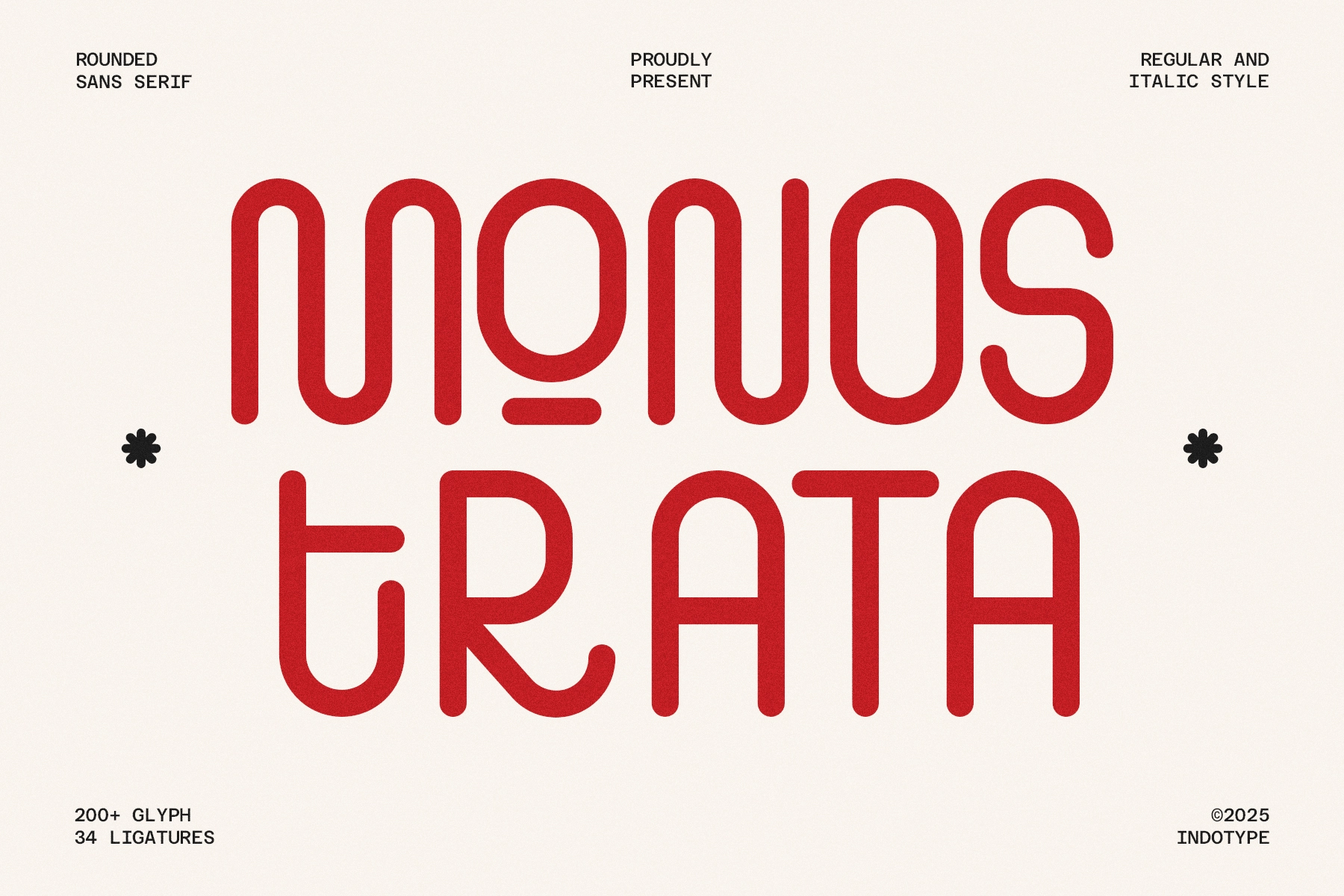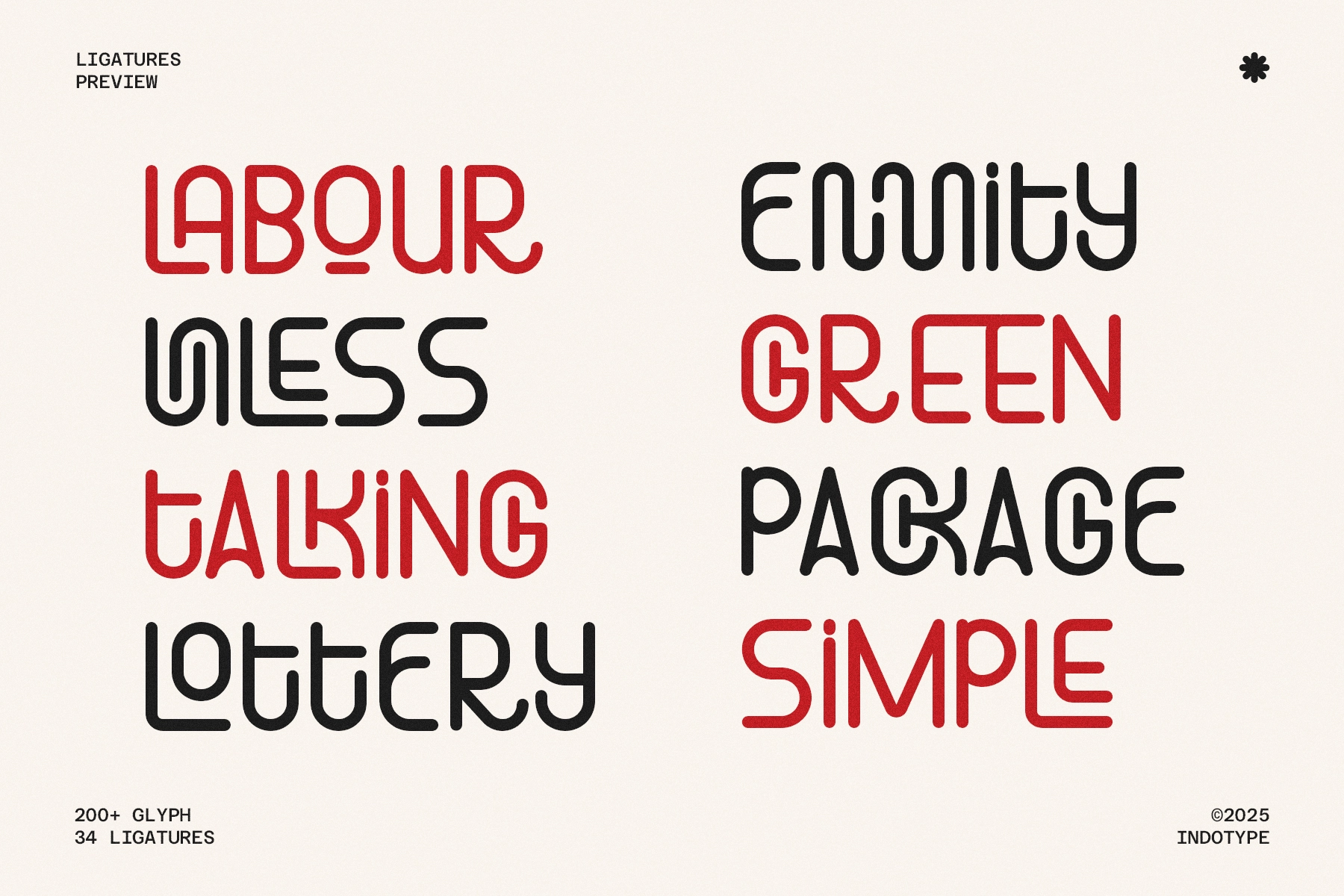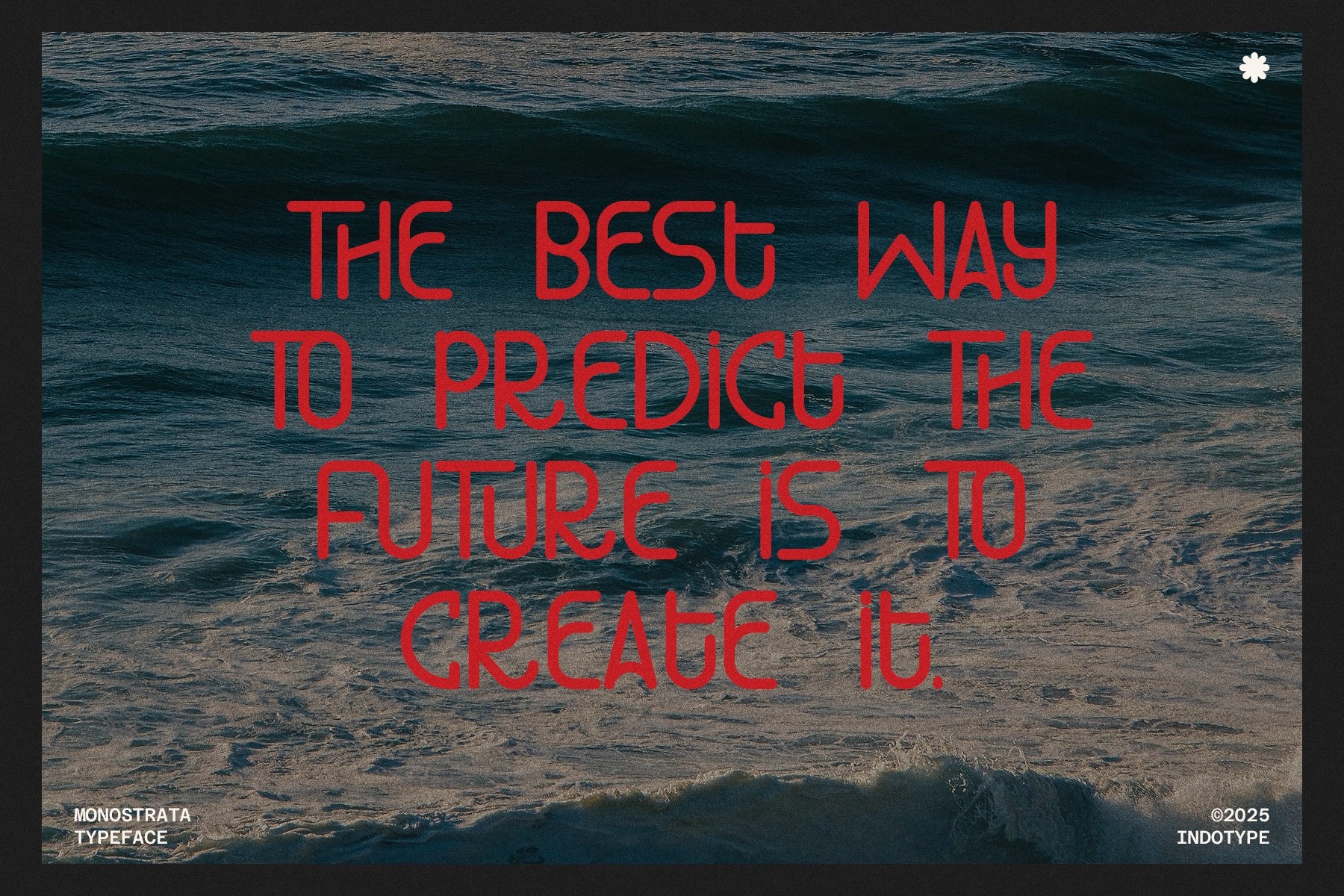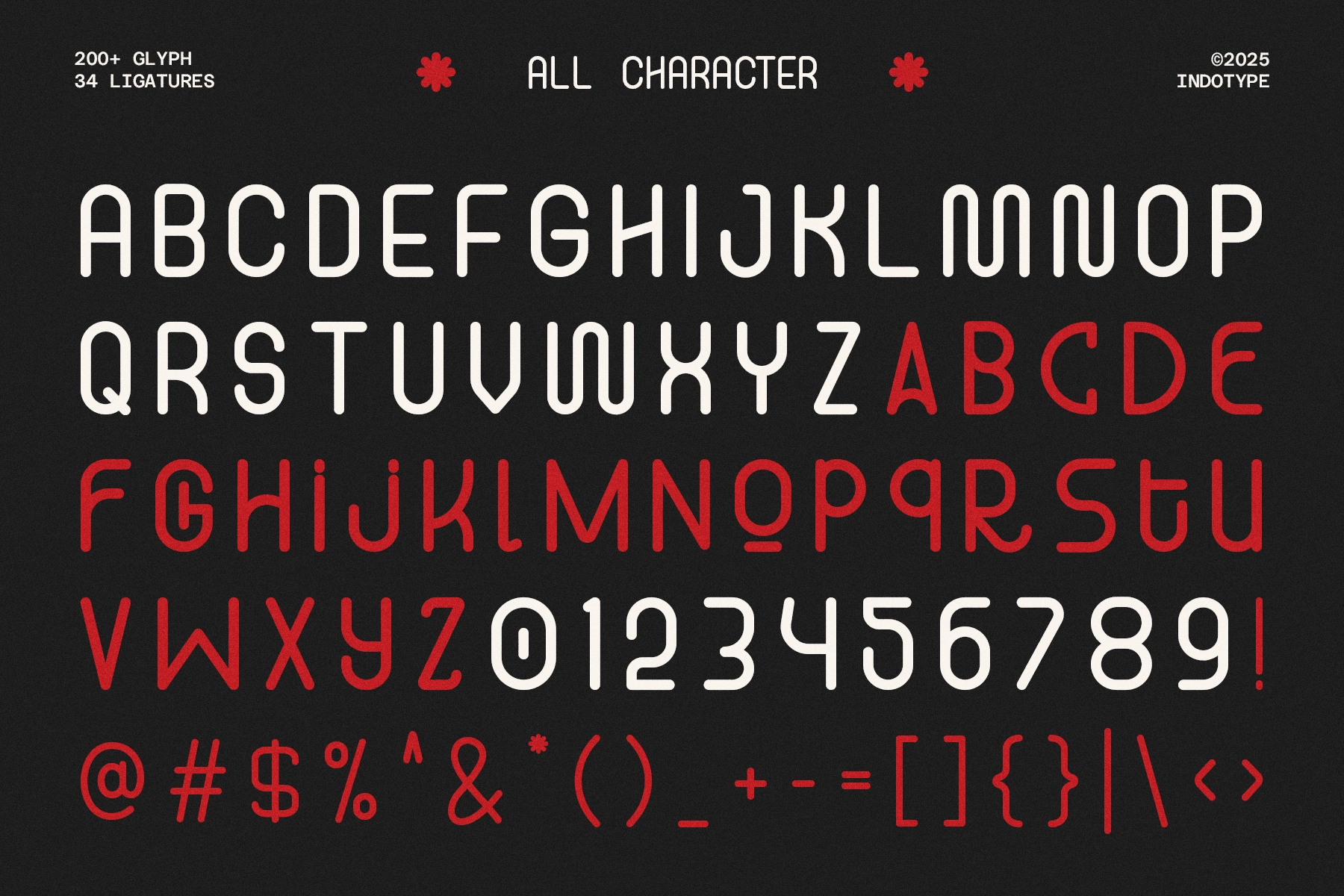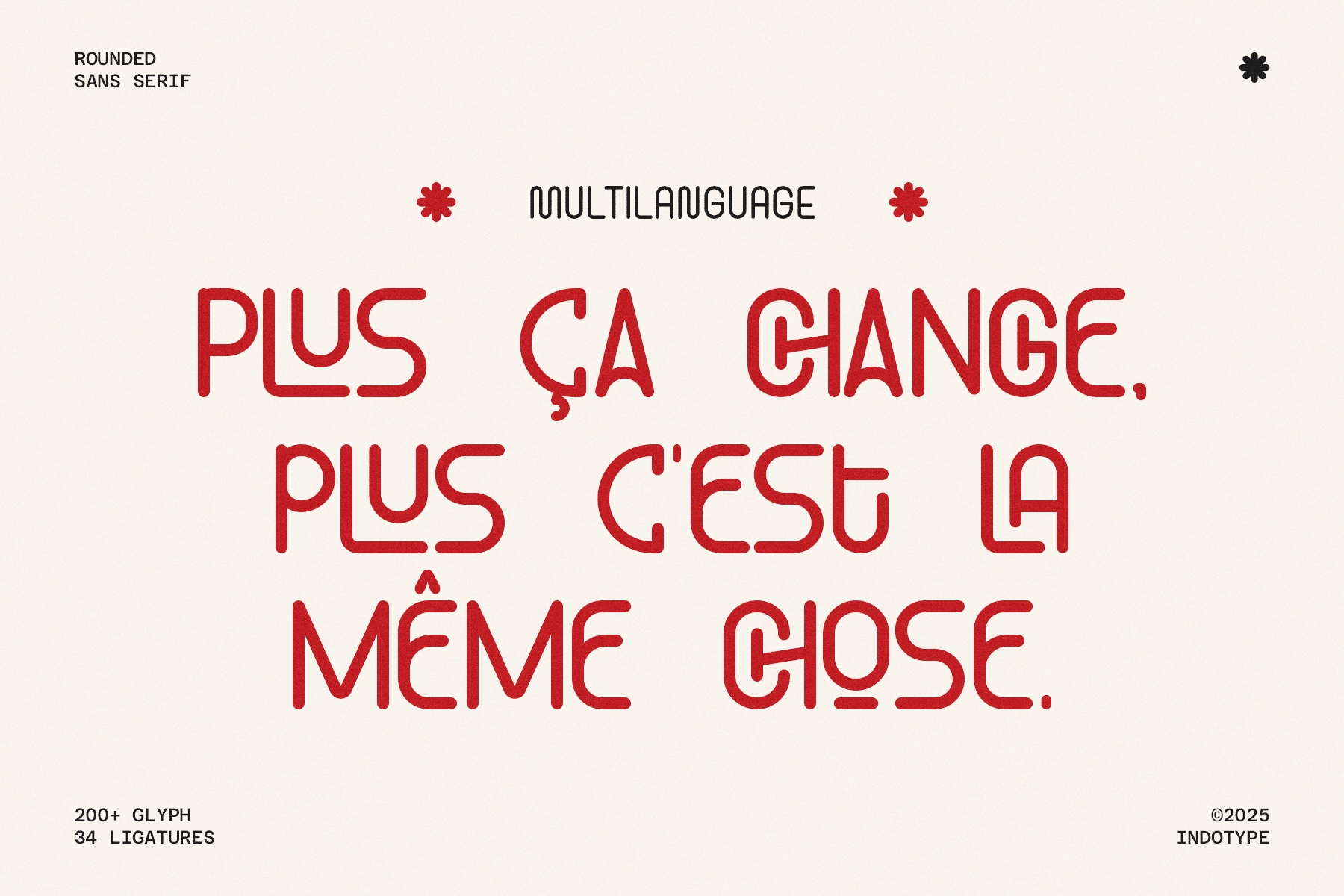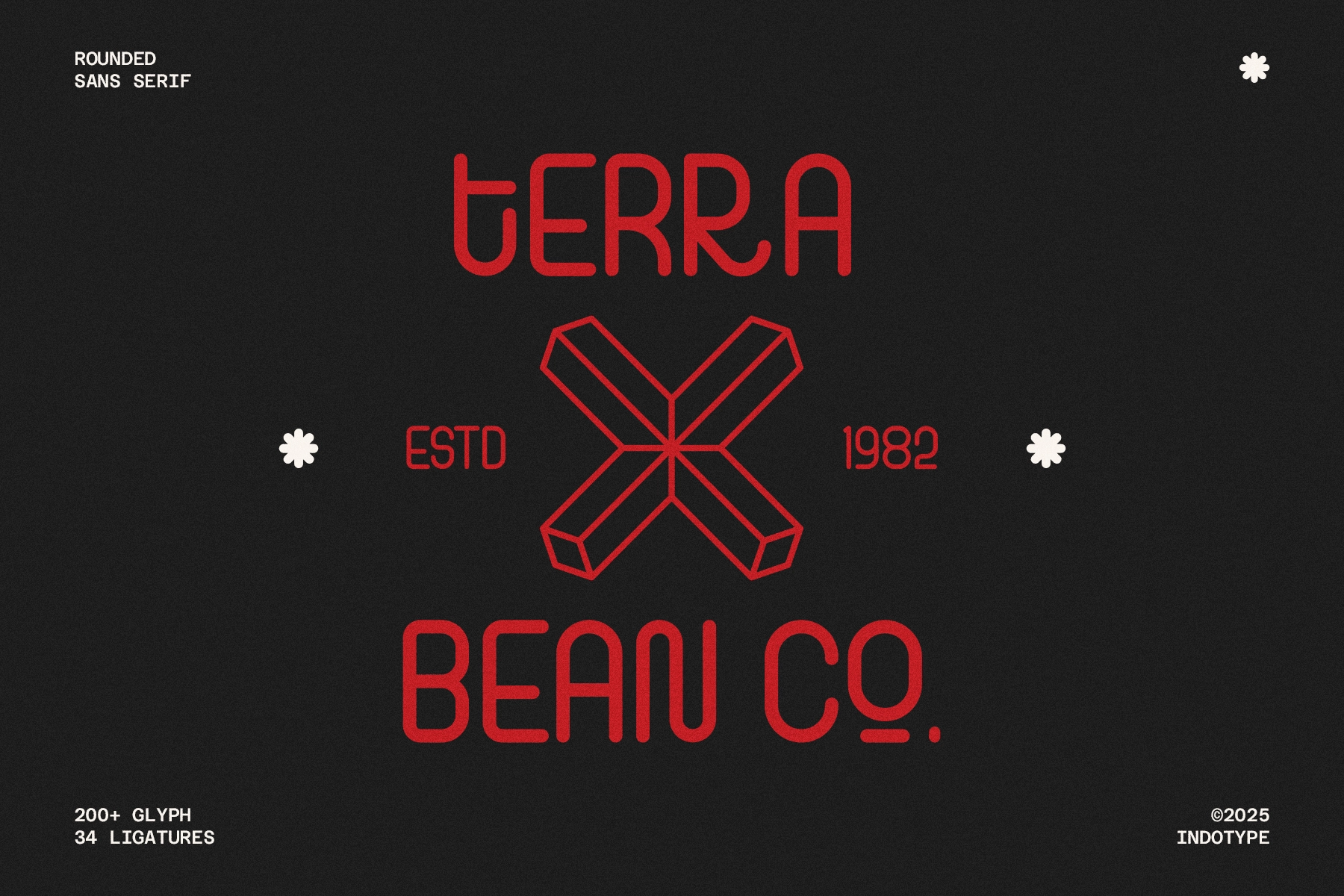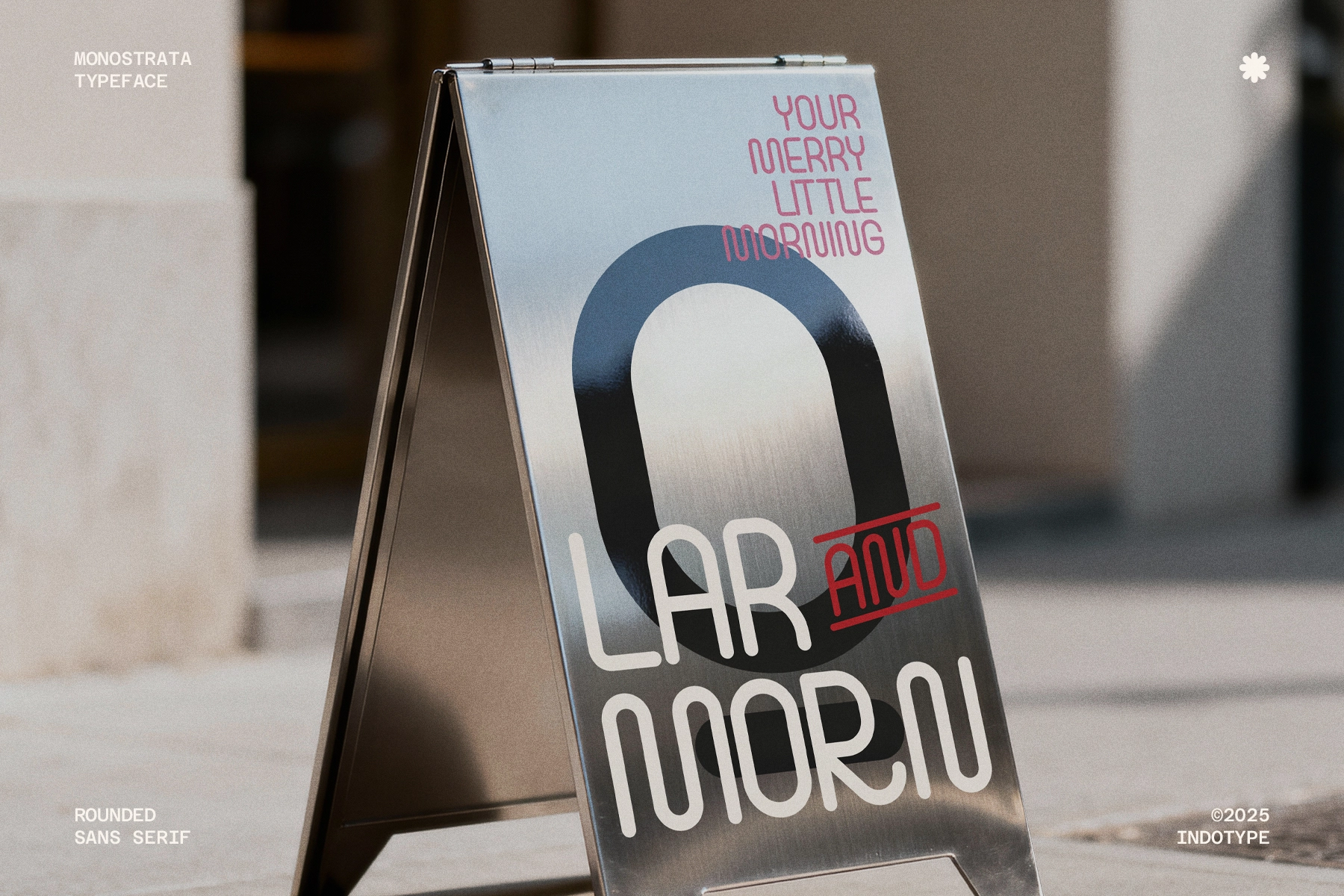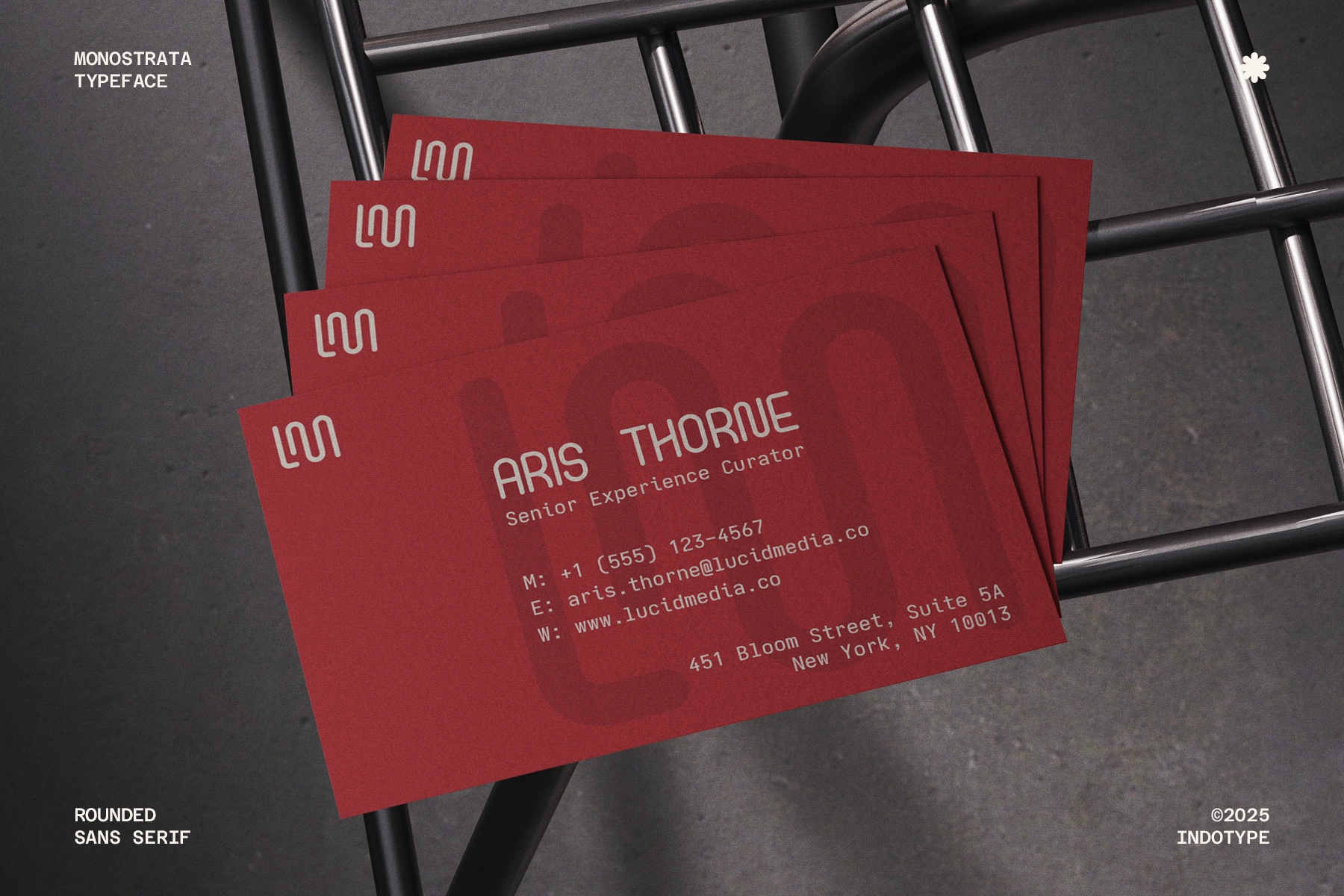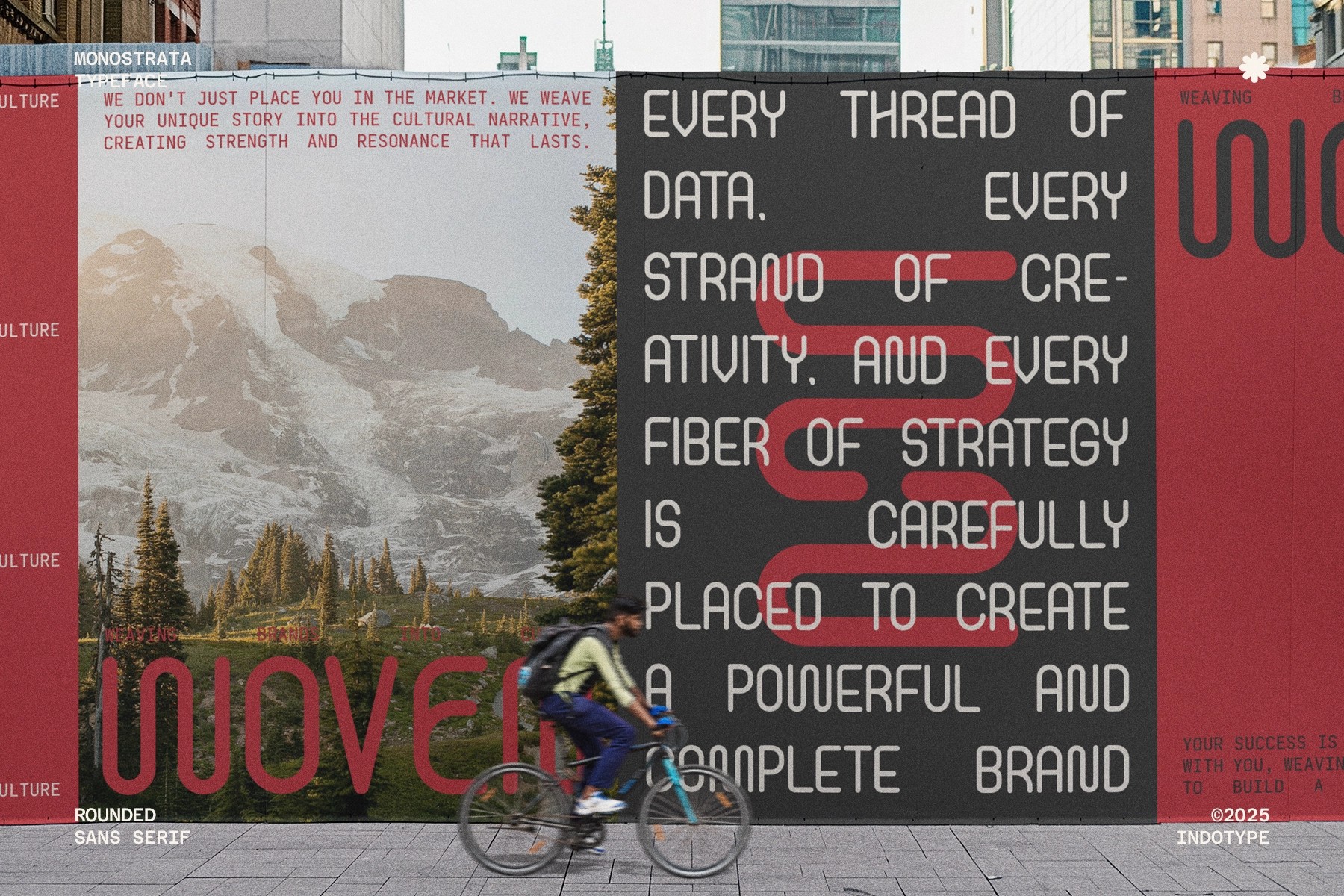
Monostrata - Geometric Rounded Sans Font
This rounded sans serif typeface uses monoline strokes, smooth terminals, and geometric letter shapes for clean display typography with a playful technical edge. Its narrow curves and custom ligatures give headlines a crisp, futuristic look while keeping the overall character warm and readable.
Monostrata is made for logos, posters, packaging, editorial titles, album covers, tech branding, café menus, apparel graphics, social media quotes, product labels, digital banners, interface accents, event flyers, and more. The Regular and Italic styles make it easy to build consistent compositions with a neat rhythm and a distinctive typographic voice.
• 2 styles: Regular, Italic
• 200+ glyphs
• 34 ligatures